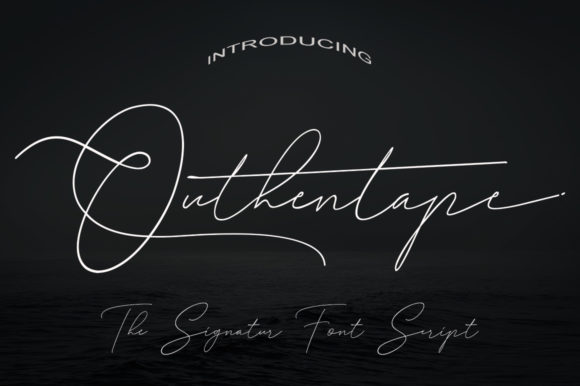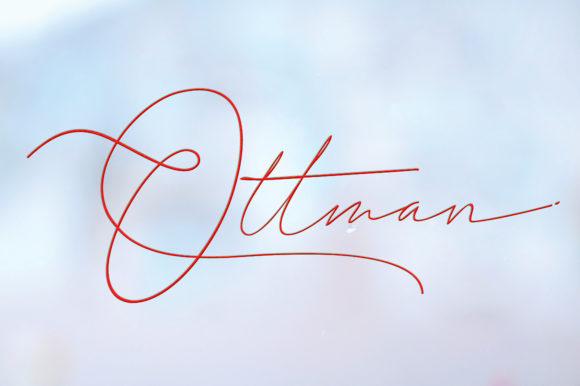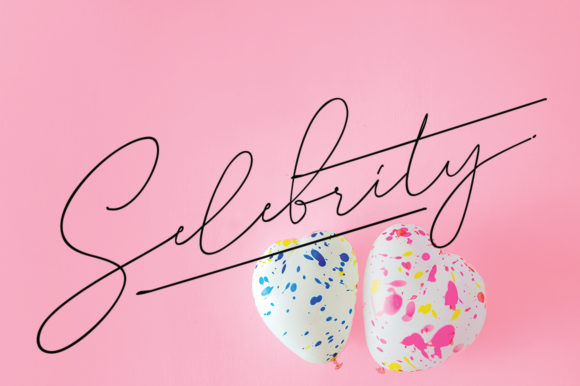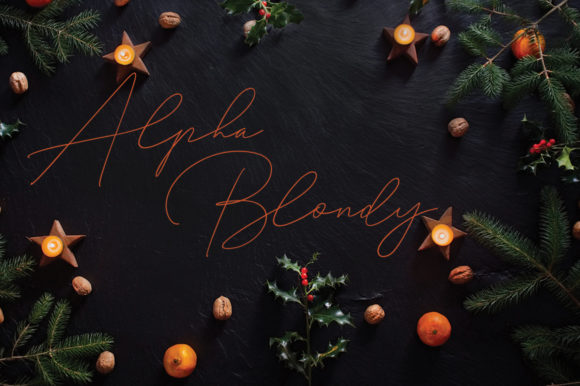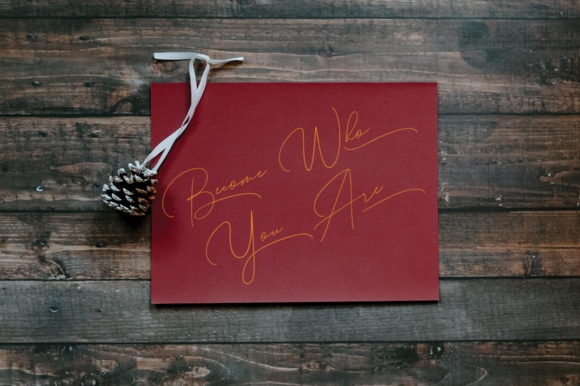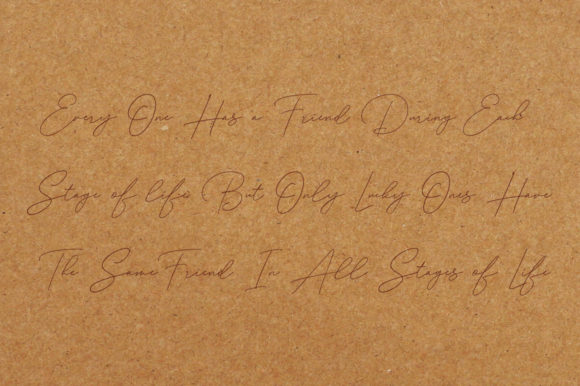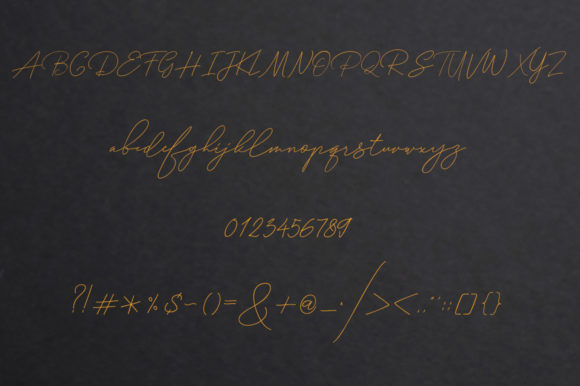
Outhentape Font
About Outhentape Font
Outhentape is a gorgeously crafted script font with beautiful swashes and elegant letters. Get inspired by its unique charm, and turn any design idea into a true standout!